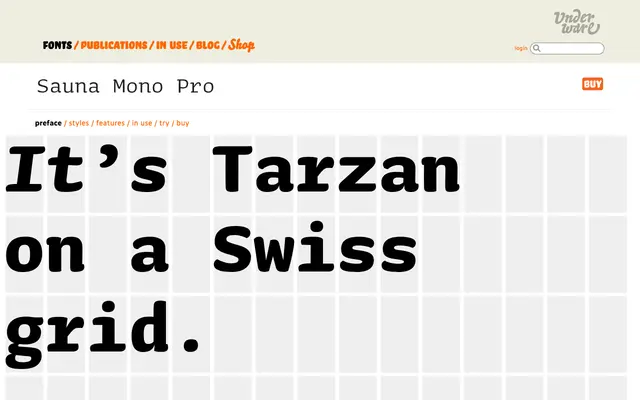
Sauna Mono
A monospaced variant of Underware's Sauna family, bringing the warmth of that humanist design to fixed-width settings.
Sauna Mono extends the character of Underware's Sauna typeface into a monospaced format, making it suitable for code, terminal and tabular contexts. As part of the broader Sauna family, it carries the humanist sensibility of that system into fixed-width territory. Specific weight and style details were not available from the page scraped.
Named and positioned as a mono variant within Underware's Sauna family, making it a monospaced typeface by explicit design intent.